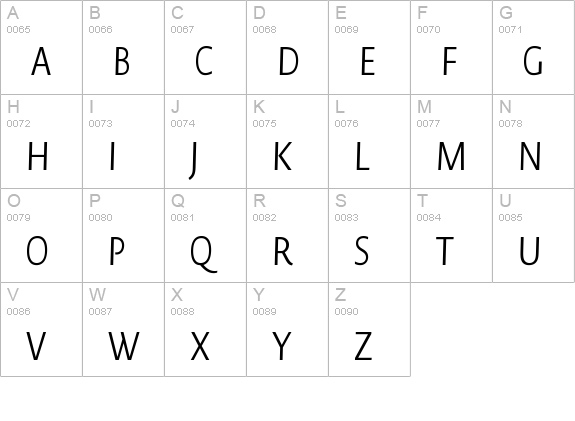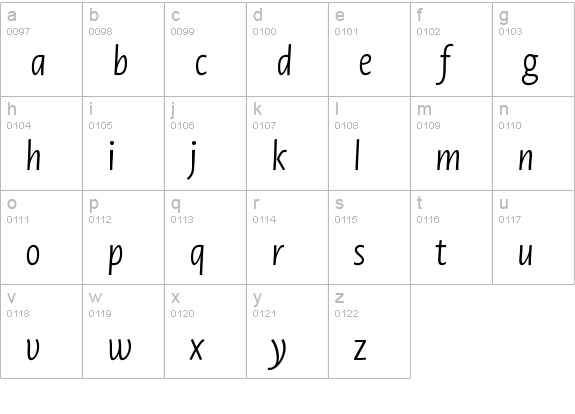
Novel SansCond Pro Light Italic Font Details
Novel SansCond Pro Light Italic is a refined, elegant, italic variant in the Novel typeface family \xE2\x80\x94 well suited to elegant body text, refined sub-headings, and luxury branding.
Novel SansCond Pro Light Italic font brings a touch of elegance and sophistication to your designs with its sleek and modern appearance. The delicate curves and slanted angles of this typeface create a sense of movement and fluidity, making it perfect for conveying a sense of style and grace. Whether you're designing a website, creating a poster, or working on a branding project, Novel SansCond Pro Light Italic is sure to make a statement. What makes this font even more appealing is that it is available for free download at FontsMarket.com. So, you can easily access this high-quality typeface without any hassle. Enhance your projects with Novel SansCond Pro Light Italic and elevate your design to a new level of sophistication.